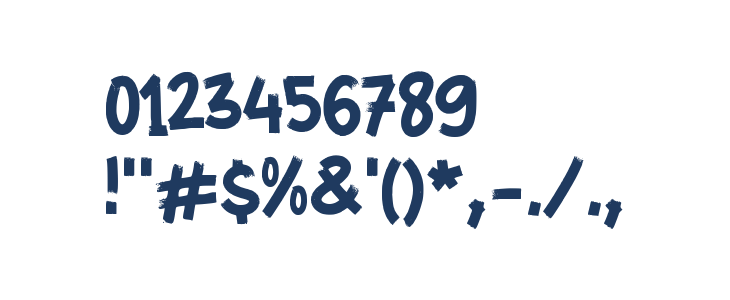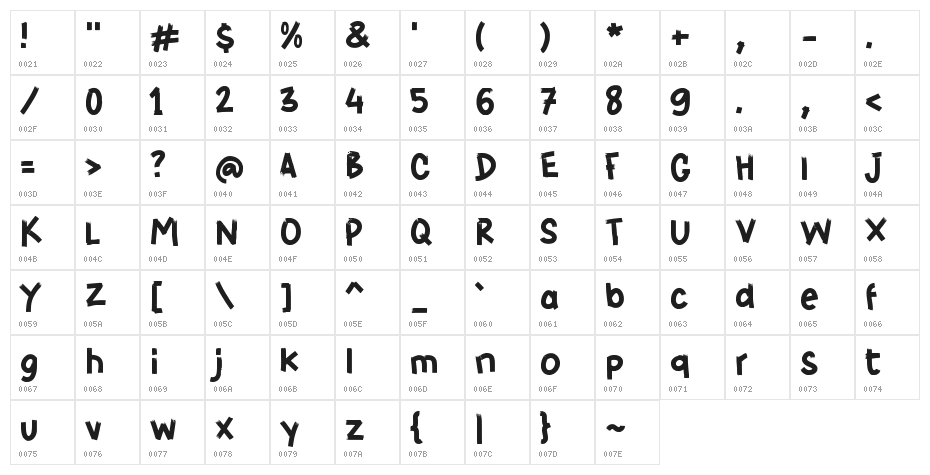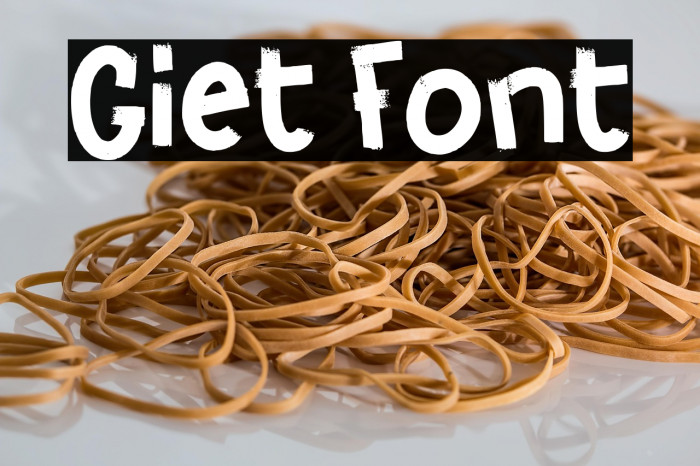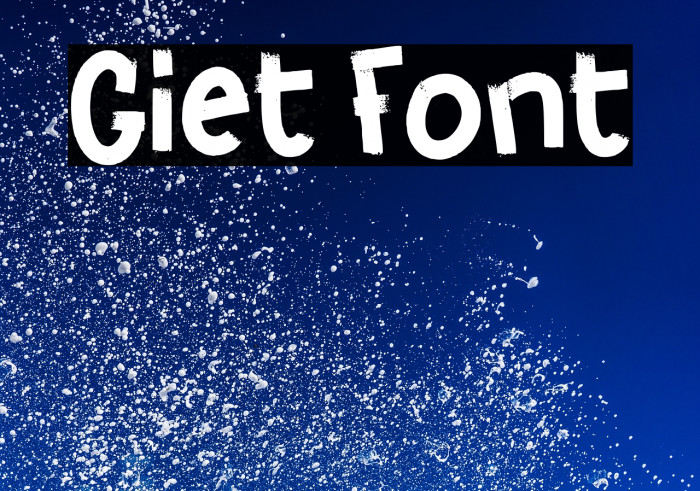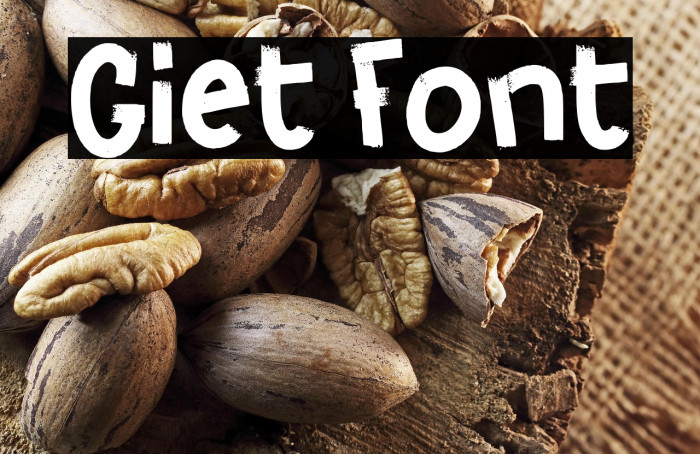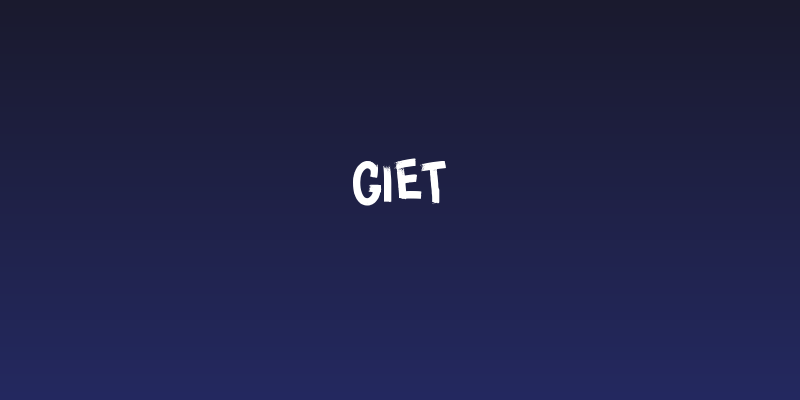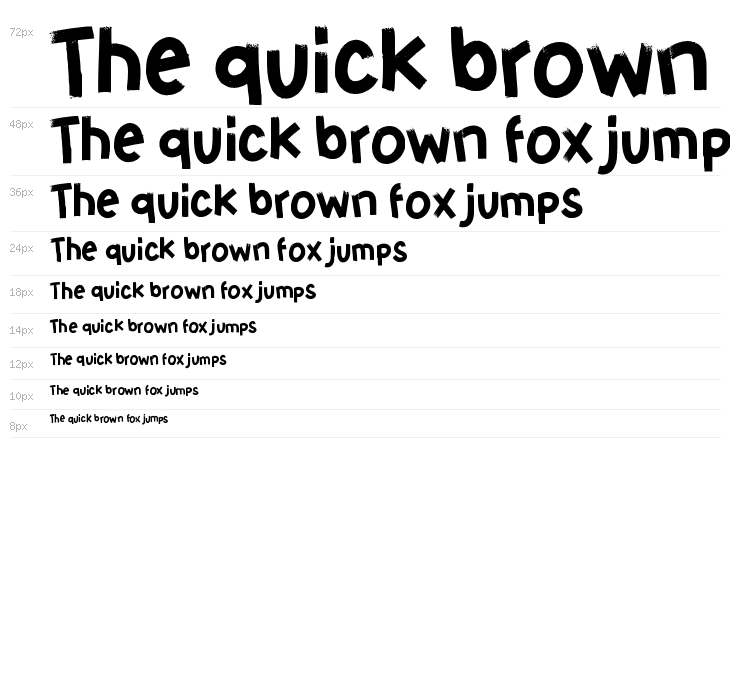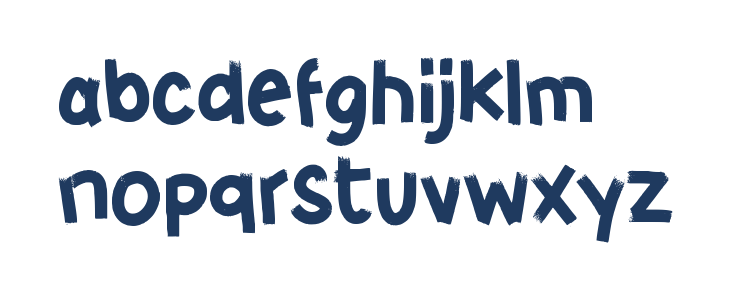
Giet Font
Giet Description
This font features a bold, expressive style with a hand-drawn appearance. The characters are slightly irregular, giving it a playful and informal feel. The strokes are thick and uneven, adding to its dynamic and energetic look. The uppercase and lowercase letters maintain a consistent style, with rounded edges and a slightly rough texture that suggests a brush or marker tool. The numbers and special characters follow the same design principles, ensuring a cohesive appearance across all glyphs. This font is ideal for projects that require a casual, artistic touch.
| Proposed Projects | Ideal for children's books, posters, greeting cards, and creative branding projects. |